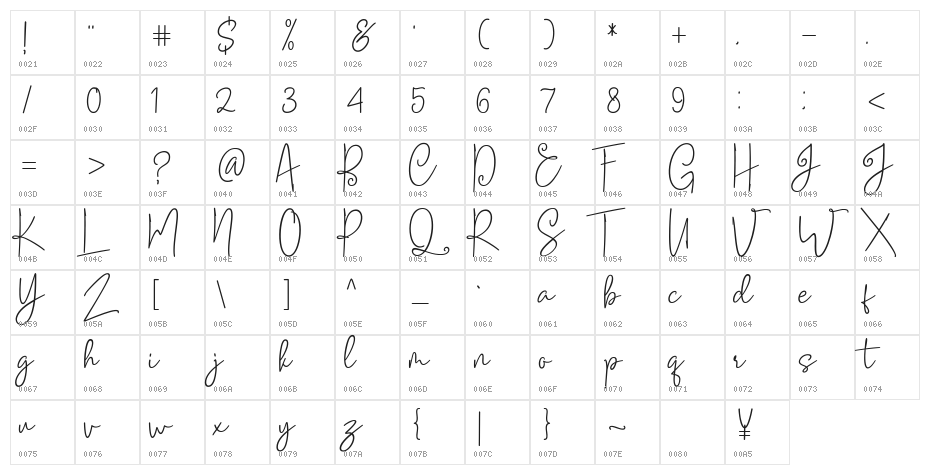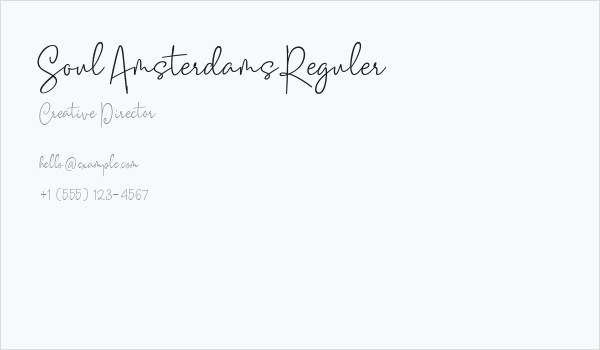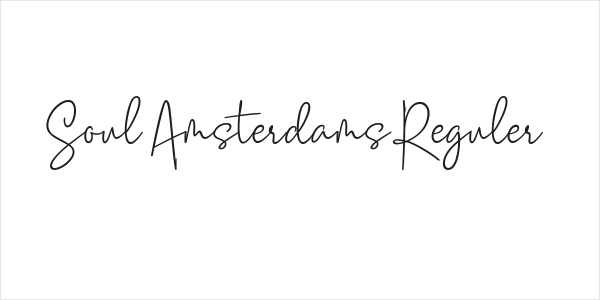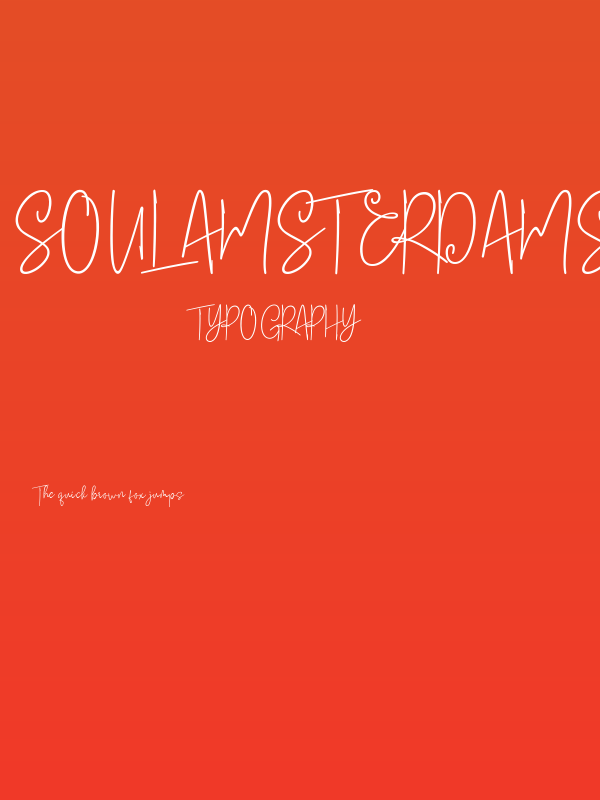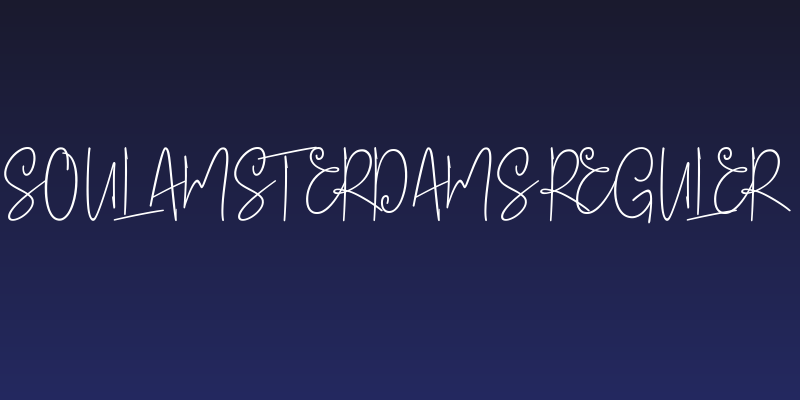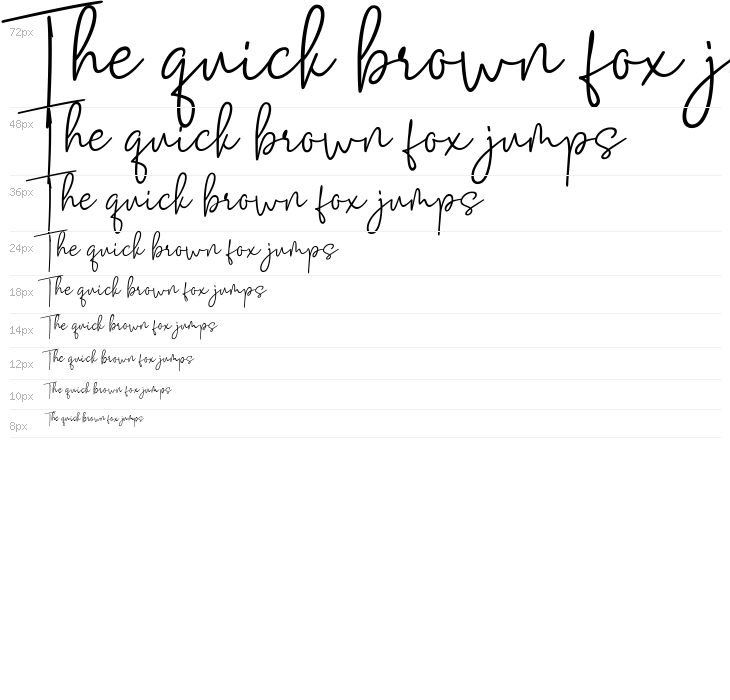
Soul Amsterdams Reguler Font
Soul Amsterdams Reguler Description
This font features a whimsical and elegant script style with a playful touch. The uppercase letters are characterized by their tall, slender forms and unique decorative swirls, giving them a distinctive and artistic flair. The lowercase letters maintain a fluid and cursive appearance, enhancing the font's overall charm. The numerals are consistent with the script style, offering a cohesive look across all characters. Special characters are thoughtfully designed to match the font's aesthetic, making it versatile for various creative applications. The font's delicate lines and artistic embellishments make it suitable for projects that require a touch of elegance and creativity.
| Proposed Projects | Ideal for wedding invitations, greeting cards, branding, and artistic projects that require a touch of elegance and creativity. |